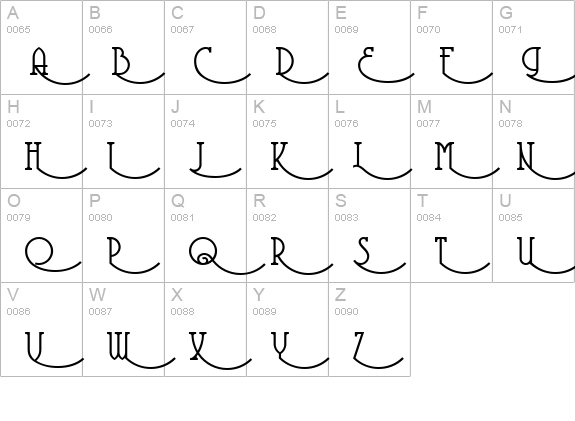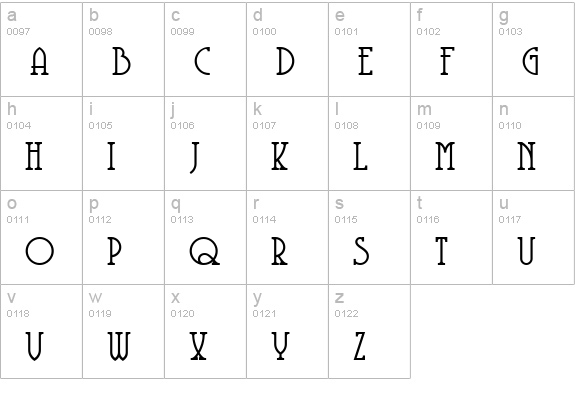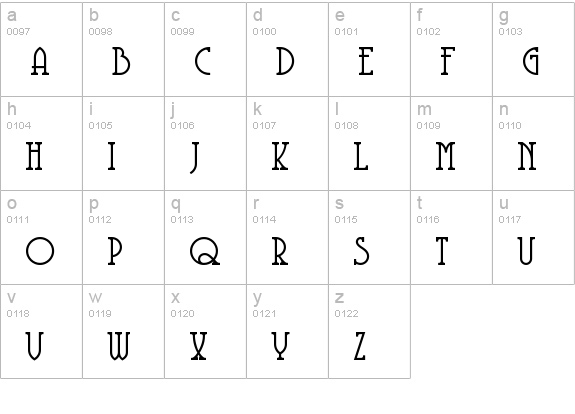
Coventry Garden NF Font Details
Coventry Garden NF is a captivating and elegant font that exudes a sense of enchantment and sophistication. With its delicate and swirling letterforms, this typeface effortlessly captures the essence of a whimsical garden in full bloom. Each letter is meticulously crafted with intricate details, making Coventry Garden NF a truly unique and mesmerizing font. Its flowing curves and graceful strokes create a harmonious balance, reminiscent of the graceful movements of a dancer in a garden filled with vibrant flowers. This font's versatility allows it to be used for a wide range of creative projects, from wedding invitations and branding materials to book covers and signage. Its timeless beauty and refined elegance make it the perfect choice for those seeking to add a touch of charm and sophistication to their designs. And the best part? Coventry Garden NF is absolutely free! As a gift to the design community, this font is freely available to download at FontsMarket.com. So, whether you're a professional designer looking for a new addition to your font library or a hobbyist looking to add a touch of magic to your personal projects, Coventry Garden NF is the perfect choice. Download Coventry Garden NF today and let its enchanting beauty inspire your creativity.